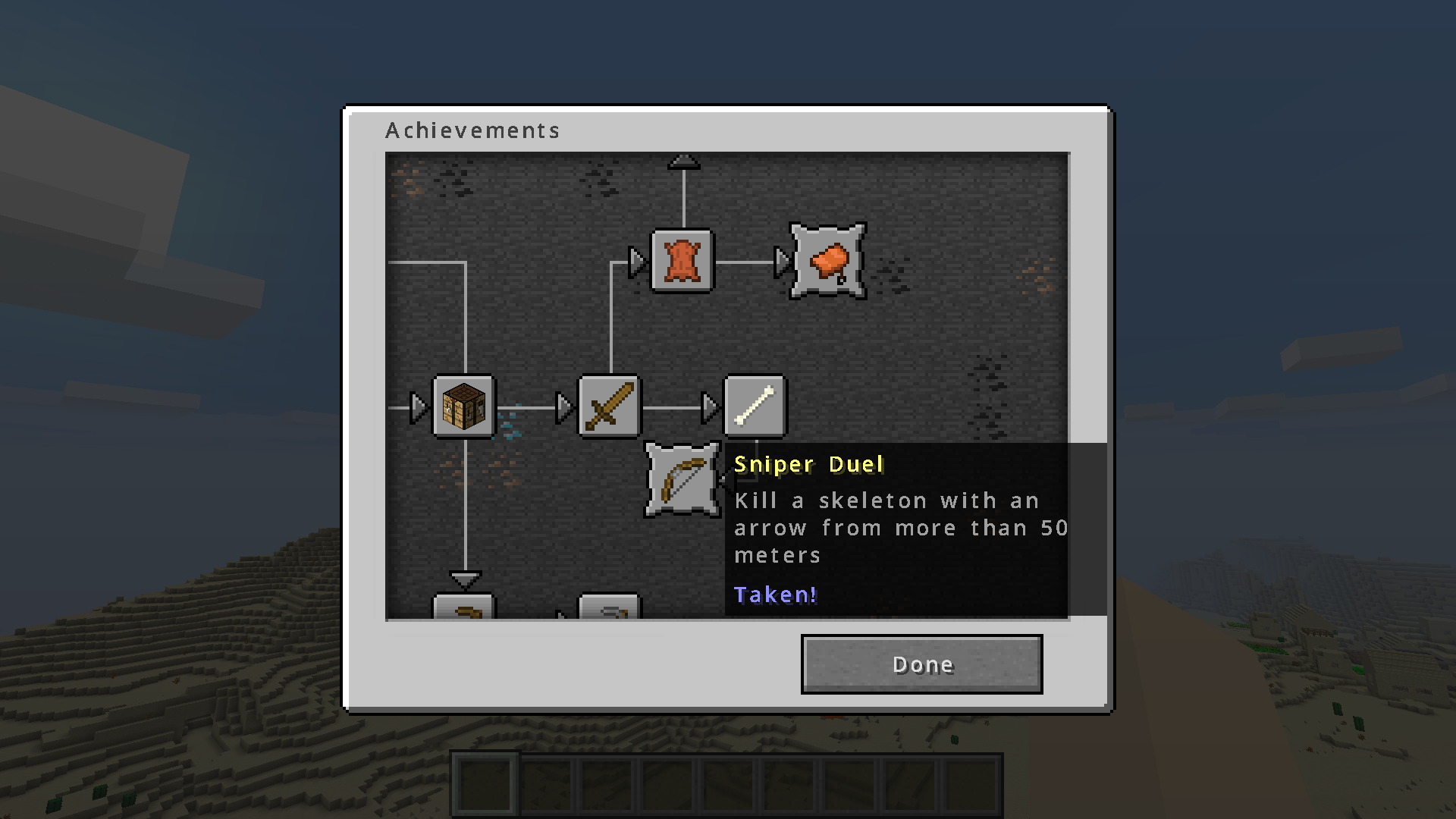
Modern Font Pack
Modern Font Pack — Modern Fonts for Minecraft
Tired of Minecraft's bulky default font? Even with the "Force Unicode Font" option enabled, text appears blurry on high-resolution monitors. This resource pack completely transforms the text in the game, making fonts smooth, modern, and aesthetically pleasing.
Default Minecraft font
Font with Unicode enabled
Resource Pack Variants
Three main versions are available with different levels of smoothing:
HD Version
Perfect for medium and high-resolution monitors or with GUI Scale 3 and above. Includes 5 regional variants using Google's Noto Sans font family:
• Japanese (JP): Noto Sans Japanese
• Korean (KR): Noto Sans Korean
• Chinese Simplified (CN): Noto Sans Simplified Chinese
• Chinese Traditional (TW): Noto Sans Traditional Chinese
• Hong Kong (HK): Noto Sans Hong Kong
Basic Version
Designed for low-resolution screens or small GUI scale (such as 2). Uses simplified smoothing for optimal display in such conditions.
Supreme Version
Provides maximum smoothing quality for very high-resolution monitors (QHD 2560×1440, 4K UHD 3840×2160 and above). Requires Minecraft version 1.13 and above.
Additional Features
Emoji Support
The resource pack includes Google's Noto Emoji fonts, allowing you to use emojis directly in the game.
Decorative Characters
Uses Noto Sans, Noto Sans Math, and Noto Sans Symbols fonts, providing access to various special symbols and mathematical signs. To use them, simply copy text from online generators and paste it into the game — no commands like /tellraw or /title are required.
Important Limitations
• Emojis and special characters work only in version 1.16 and above
• Minecraft does not support combining characters, so some emojis and special text styles may display incorrectly
• All emojis are monochrome for compatibility with the game's color formatting
Regional Features
Different countries and regions have separate variants for character writing:
Selecting the Right Version
With the wrong version selection, the font may appear blurry or rough. The image below shows how different versions display with various settings:
For QHD (2560×1440), 4K UHD (3840×2160) and above resolutions with Minecraft version 1.13+, the Supreme version with fullscreen mode enabled is recommended.
Advantages Over Mods
Unlike Smooth Font Mod and Modern UI Mod, Modern Font Pack:
If your region does not use CJK characters, you can ignore the CJK Type parameter — simply choose the appropriate smoothness level and version category.